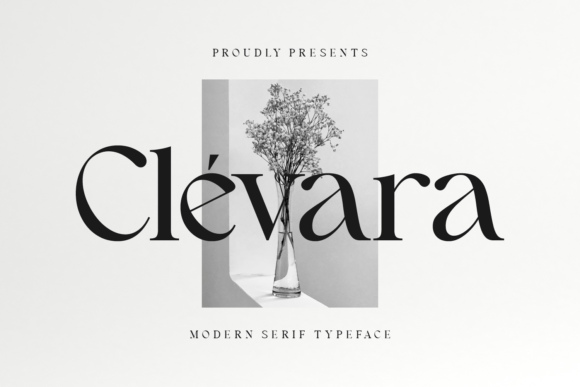
Introducing Clévara Font: The Epitome of Modern Serif Elegance
In the realm of typography, few fonts manage to strike a balance between soft curves and sharp elegance. Clévara Font, however, achieves this delicate equilibrium with remarkable finesse. This refined modern serif typeface has been crafted to bring a touch of quiet luxury and timeless style to high-end branding, editorial layouts, wedding stationery, and minimalist design projects. In this article, we will delve into the intricacies of Clévara Font, exploring its design characteristics, use cases, and the unique value it offers to creators who prioritize both beauty and balance in typography.
The Design Philosophy Behind Clévara
Clévara’s design philosophy revolves around the harmonious blend of soft curves with sharp, elegant lines. This contrast not only gives the typeface its distinctive look but also allows it to adapt seamlessly to various design applications. The letterforms of Clévara have been meticulously crafted to exude a sense of grace and sophistication. Each character is designed to contribute to a cohesive and aesthetically pleasing text flow, making it an excellent choice for projects where typography plays a pivotal role in conveying the brand’s or publication’s personality.
Key Features of Clévara Font
- Refined Modern Serif: Clévara boasts a modern serif design that feels both contemporary and rooted in traditional typographic principles.
- Soft Curves and Sharp Elegance: The interplay between soft curves and sharp lines gives Clévara its unique character, setting it apart from more conventional serif typefaces.
- Graceful Letterforms: Each letterform in Clévara has been carefully designed to contribute to the overall elegance and flow of the text.
- Artistic Character: Clévara’s artistic character makes it a standout choice for designers looking to add a touch of sophistication to their projects.
- Versatility: Despite its elegant appearance, Clévara is surprisingly versatile, suitable for a wide range of design applications from high-end branding to editorial layouts and wedding stationery.
Use Cases for Clévara Font
Clévara’s unique blend of elegance and versatility makes it suitable for a variety of design projects. Here are some of the key areas where Clévara truly shines:
- High-End Branding: For brands that wish to convey luxury, sophistication, and a sense of timelessness, Clévara offers a typographic solution that is both refined and impactful.
- Editorial Layouts: In editorial design, typography is crucial for creating a visually appealing and readable layout. Clévara’s elegant letterforms and balanced design make it an excellent choice for magazines, journals, and books.
- Wedding Stationery: The elegance and sophistication of Clévara make it a perfect fit for wedding stationery, including invitations, menus, and place cards, adding a touch of luxury to the wedding decor.
- Minimalist Design Projects: For minimalist designs where simplicity and elegance are key, Clévara provides a beautiful yet understated typographic solution.
The Value of Clévara for Creators
For creators who value both beauty and balance in typography, Clévara offers a unique proposition. Its design strikes a delicate balance between aesthetics and functionality, providing a beautiful typographic experience without compromising on readability or versatility. By choosing Clévara, designers and brands can:
- Elevate Their Brand: With Clévara, brands can elevate their visual identity, conveying a sense of luxury and sophistication to their audience.
- Enhance Readability: Despite its elegant design, Clévara maintains high readability, ensuring that the text is not only beautiful but also easy to read.
- Streamline Their Design Process: Given its versatility, Clévara can be used across a variety of design projects, streamlining the design process and ensuring consistency in brand communication.
Clévara Font represents a significant addition to the world of typography, offering a refined modern serif typeface that effortlessly blends soft curves with sharp elegance. Its design philosophy, key features, and versatility make it an invaluable tool for creators who seek to imbue their projects with a sense of quiet luxury and timeless style. Whether it’s high-end branding, editorial layouts, wedding stationery, or minimalist design projects, Clévara stands out as a sophisticated and elegant typographic solution. As the design landscape continues to evolve, Clévara is poised to leave its mark, offering a beautiful yet balanced approach to typography that will resonate with designers and brands alike.